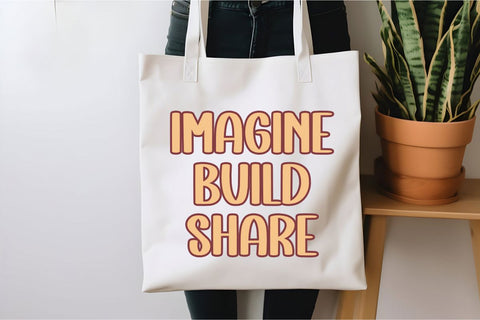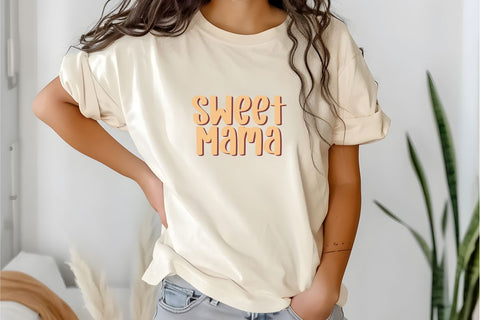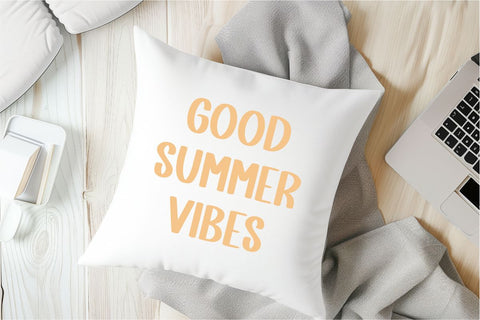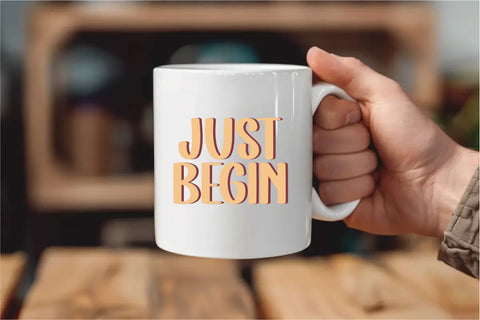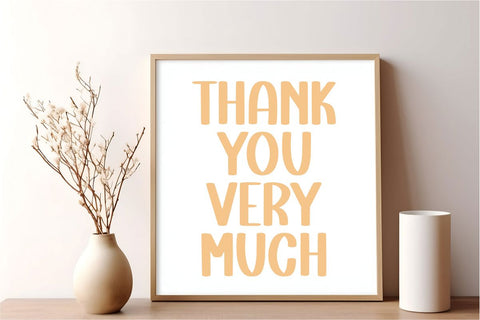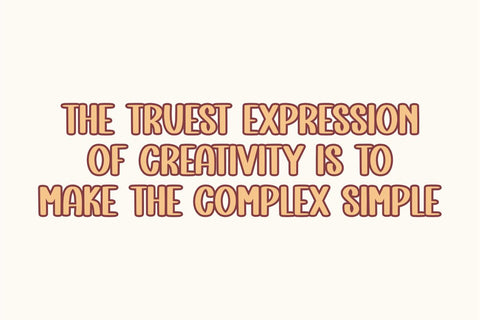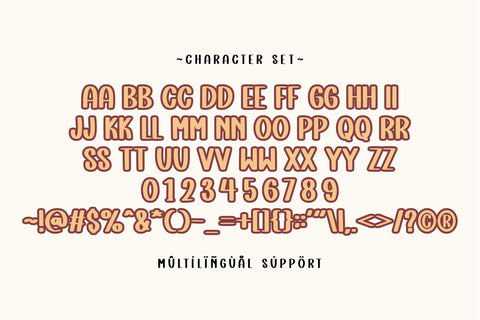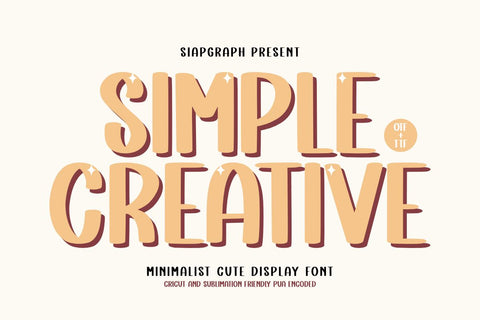
Simple Creative - Cute Display Font
Simple Creative is a minimalist yet cute display font that brings a playful and approachable vibe to your creative projects. Its rounded edges and cheerful style make it perfect for crafting, Print On Demand designs, sublimation prints, planner stickers, children’s products, and Cricut projects. With PUA encoding for easy access to all characters, and available in OTF + TTF formats, this font is a must-have for designers selling digital and handmade products on Etsy.